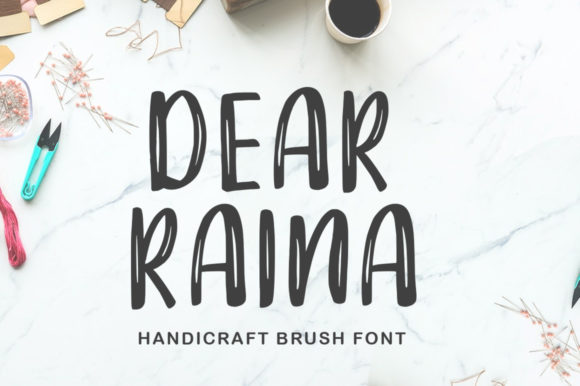
Prepare to be captivated by Dear Raina, a stunning and enchanting handwritten font that will leave an indelible mark on your creative endeavors. Its delicate strokes and elegant curves exude an irresistible charm that will transform your designs into captivating works of art.
With Dear Raina, you hold the key to unlocking a world of creative possibilities. Envision your designs reaching new heights as you effortlessly craft logos that exude sophistication, letterheads that radiate professionalism, and wedding invitations that evoke a sense of timeless romance. The possibilities are endless with this versatile font that caters to your every design need.
Step into a realm where your imagination reigns supreme and let Dear Raina guide you through a journey of artistic exploration. Its meticulous detailing and graceful flow will add a touch of magic to your projects, whether you're designing marketing materials, creating eye-catching social media posts, or personalizing your digital spaces.
Indulge in the beauty of Dear Raina, a font crafted with love and passion. Its graceful curves and delicate strokes will leave a lasting impression on your audience, evoking emotions and capturing their attention. Prepare to be amazed as your designs flourish with an allure that is both timeless and captivating.
Dear Raina is not just a font; it's an artistic masterpiece that will elevate your designs to new heights. Its versatility knows no bounds, allowing you to effortlessly create designs that resonate with your audience and leave a lasting impact. Embrace the power of Dear Raina and let your creativity soar to unprecedented levels.